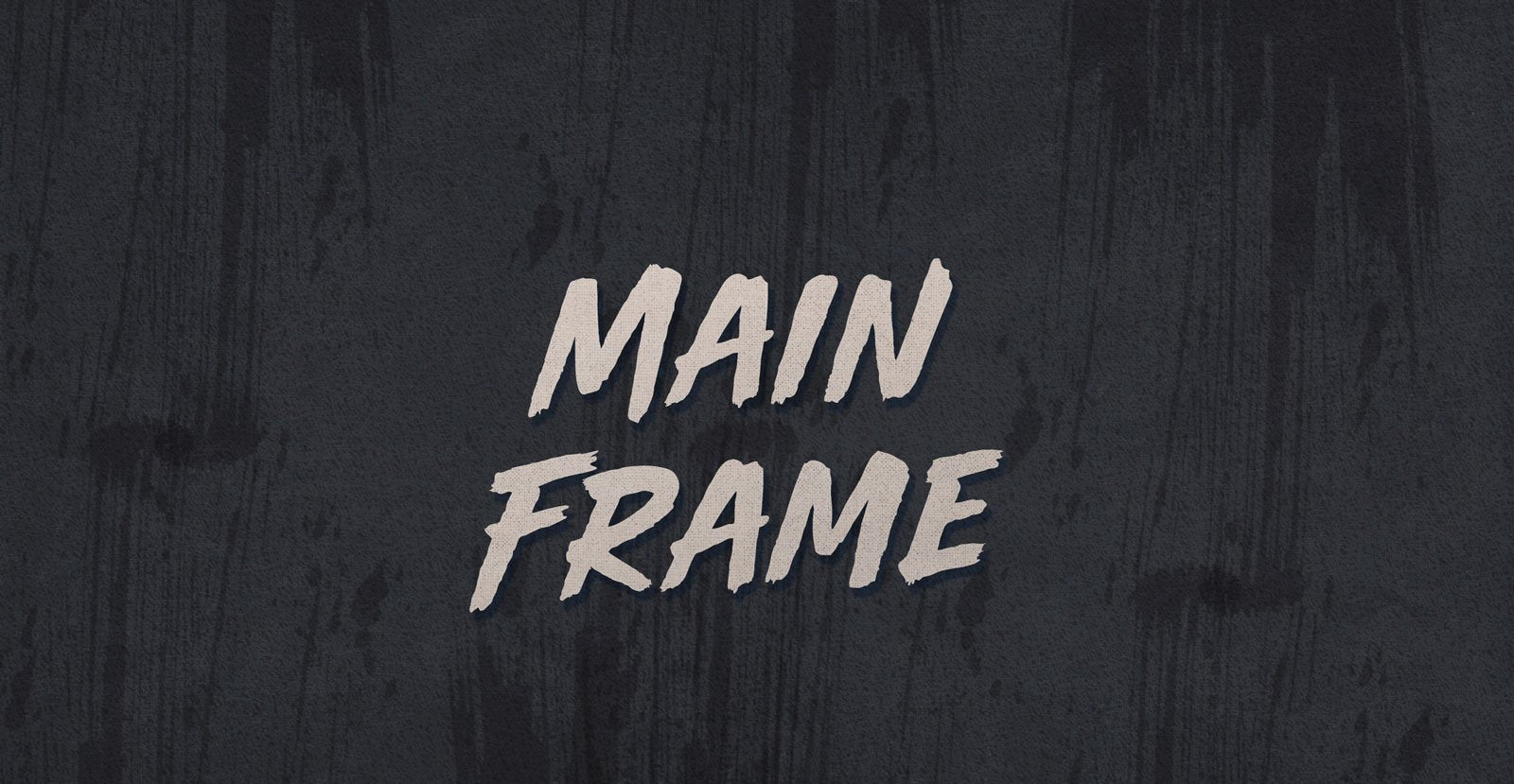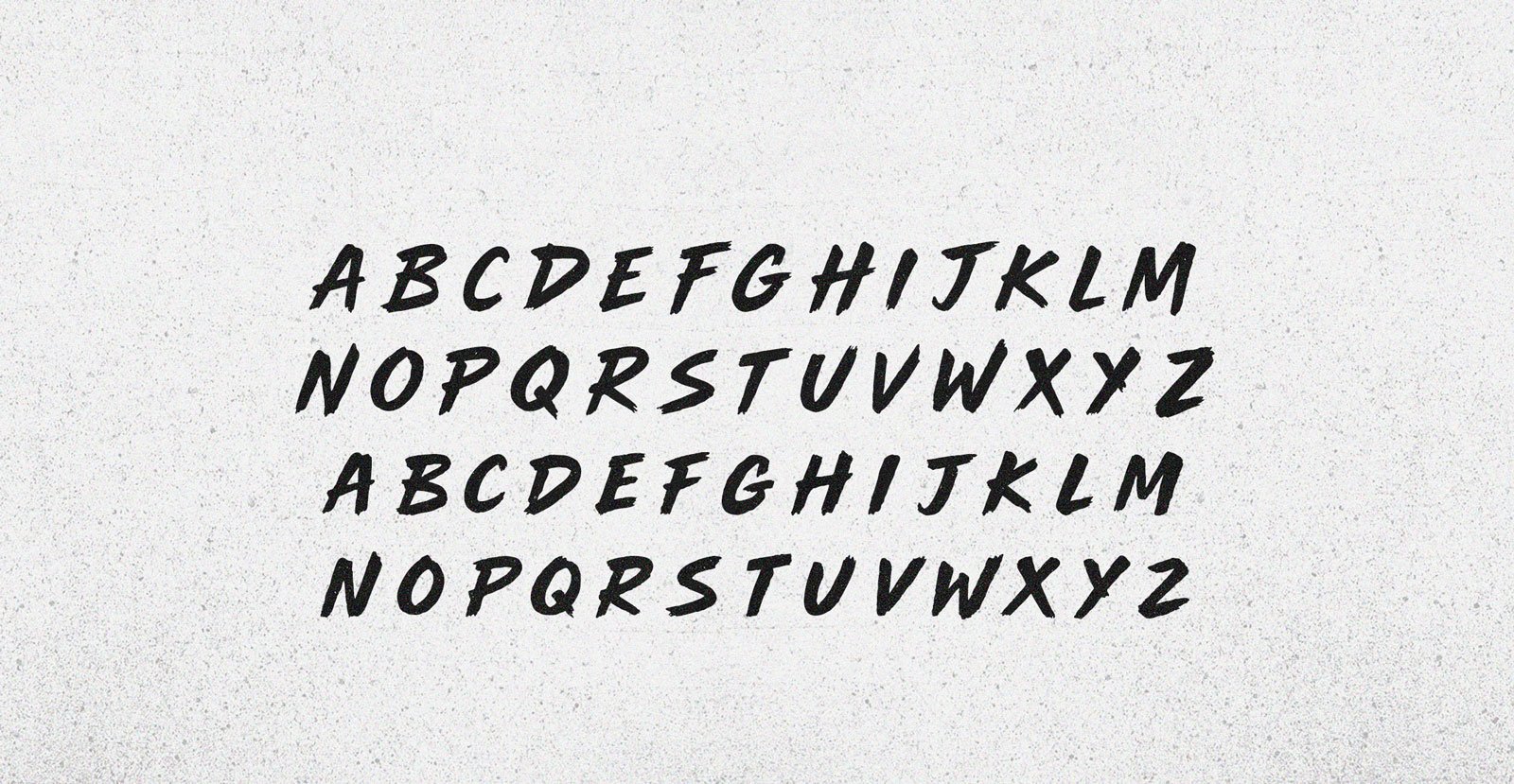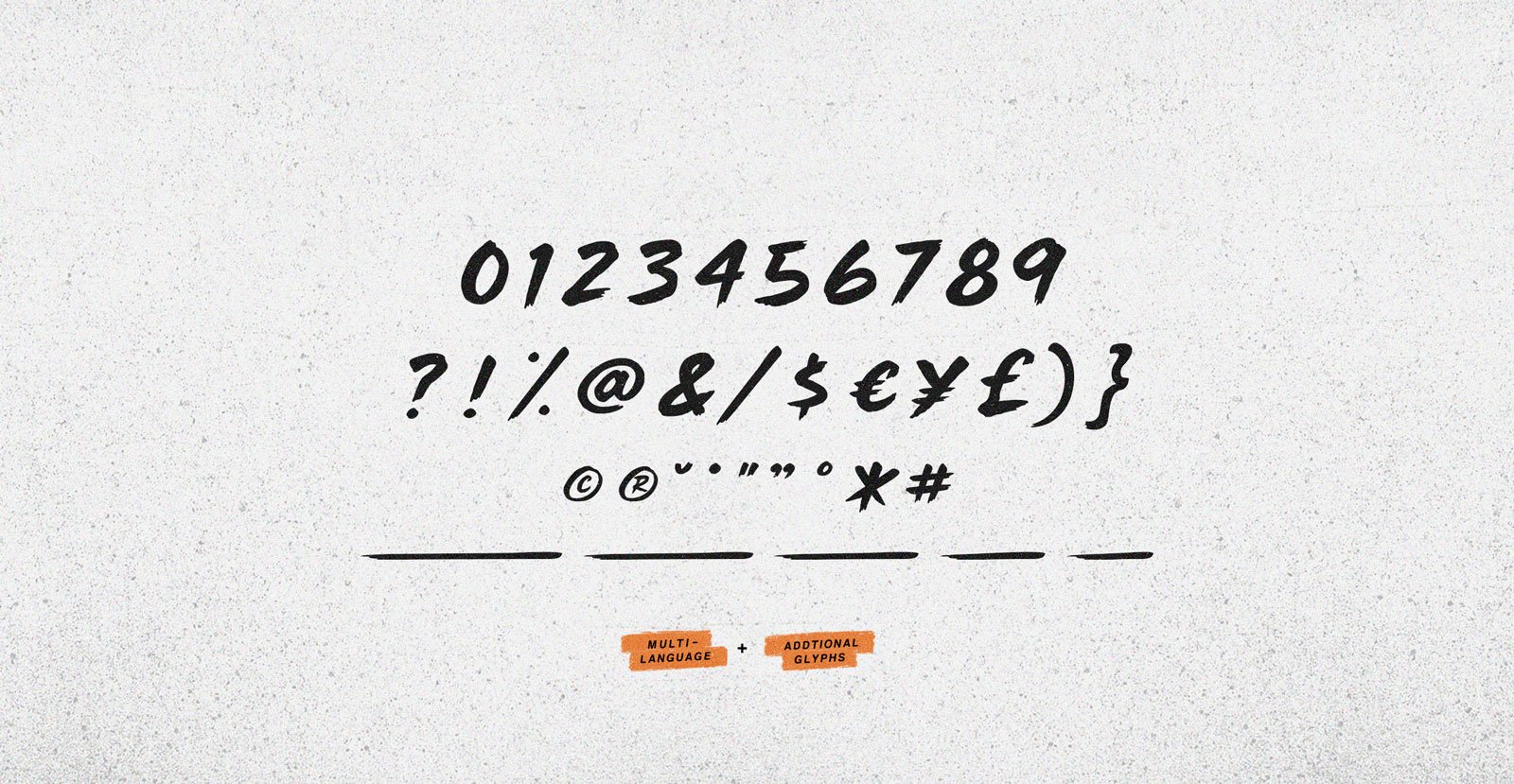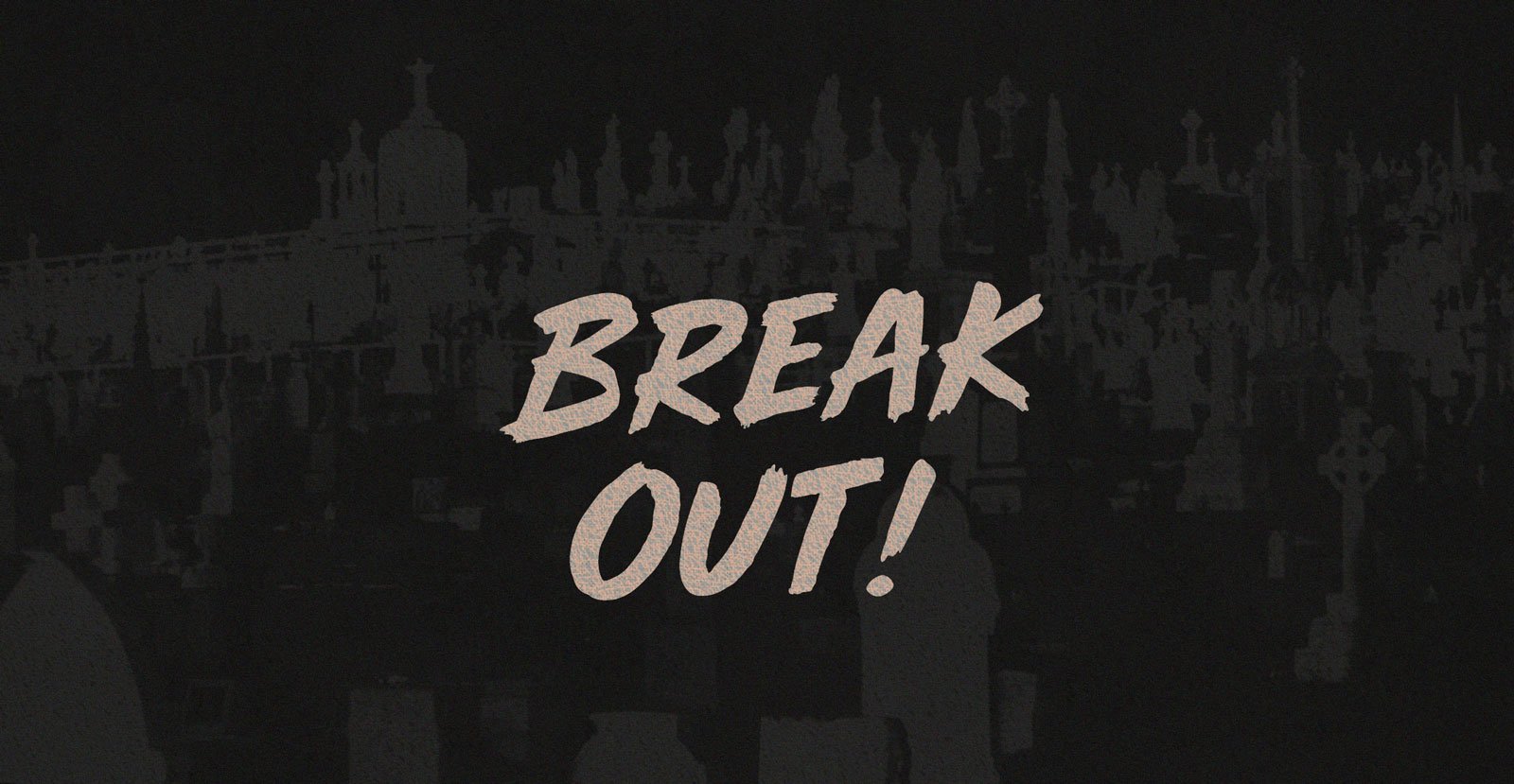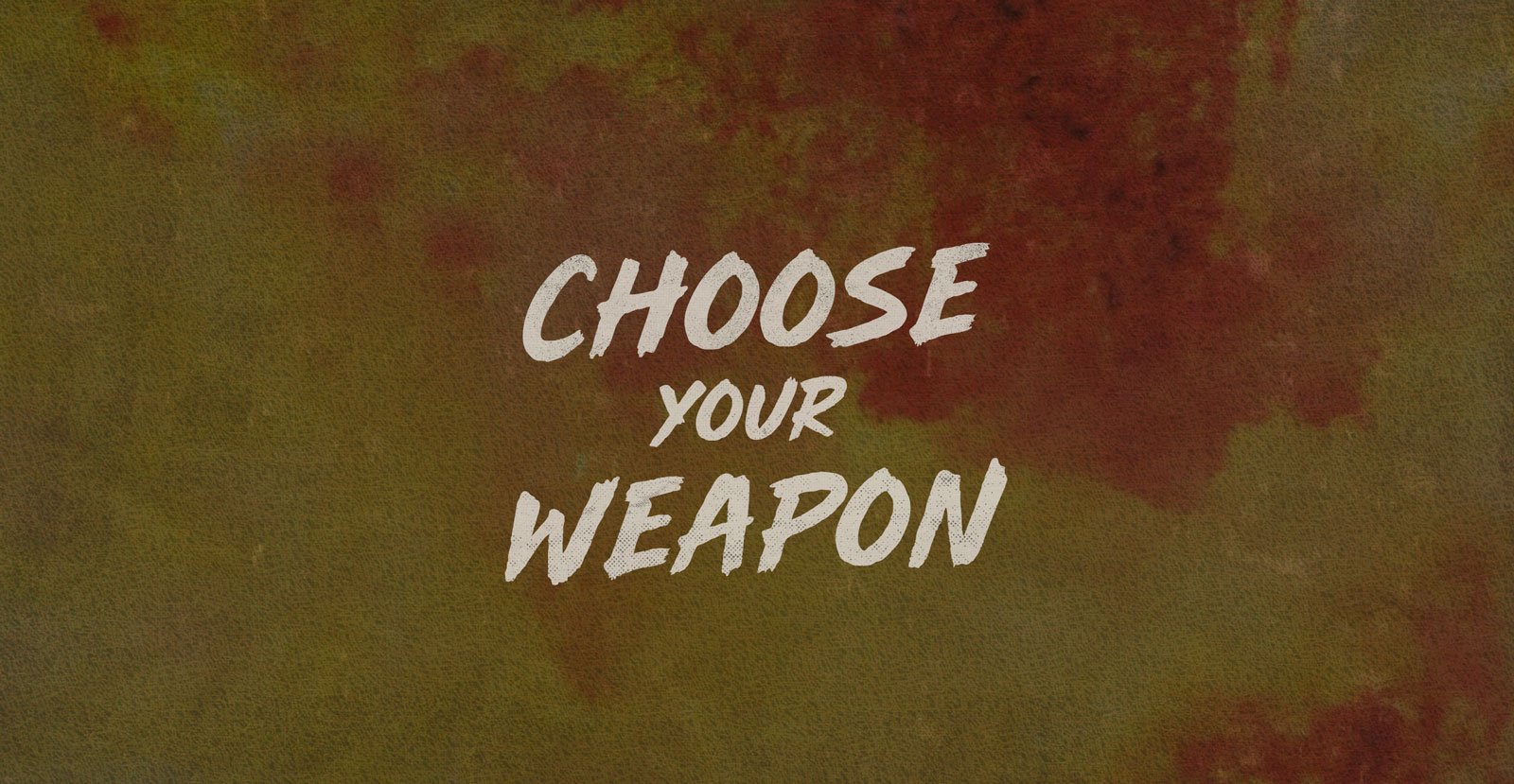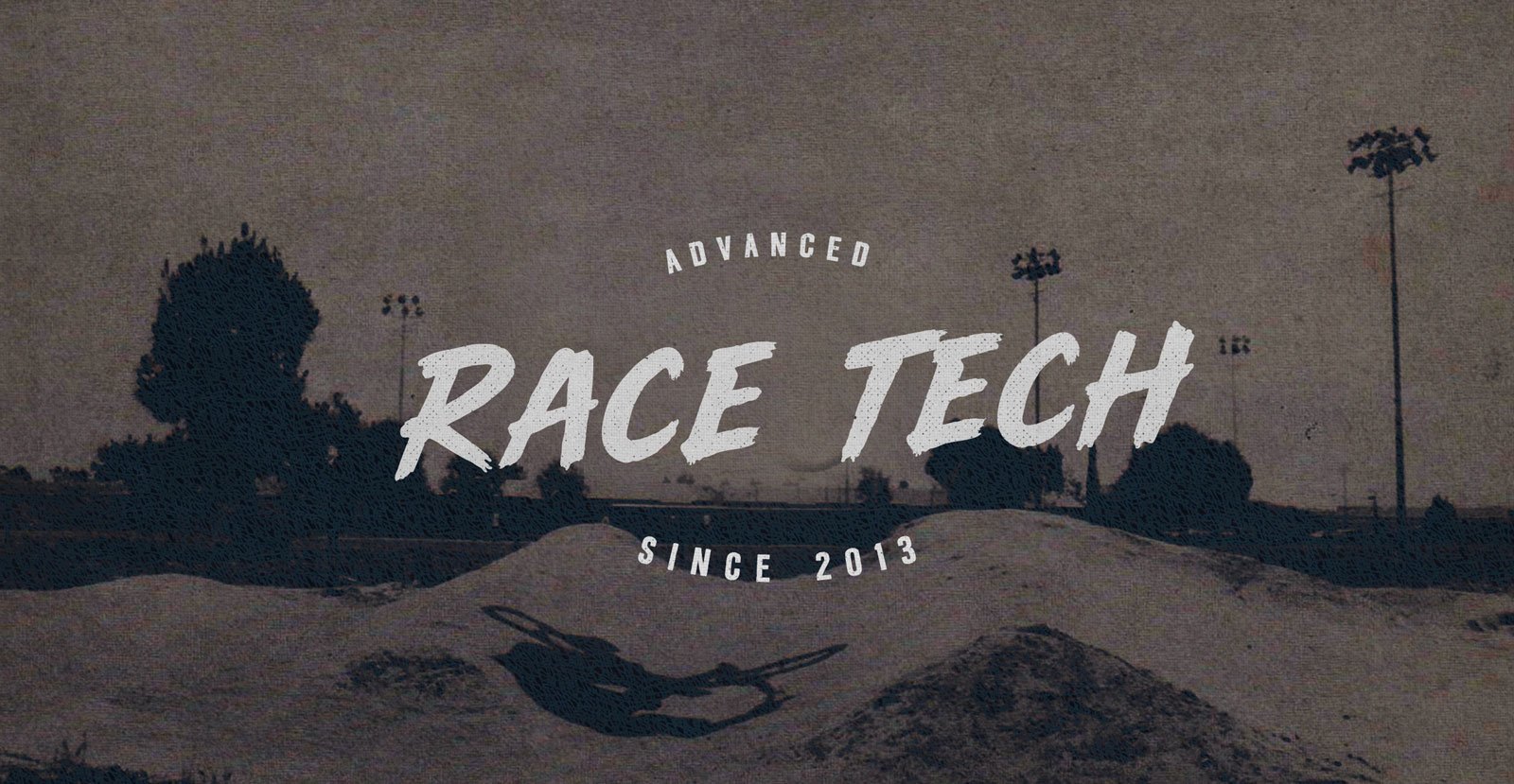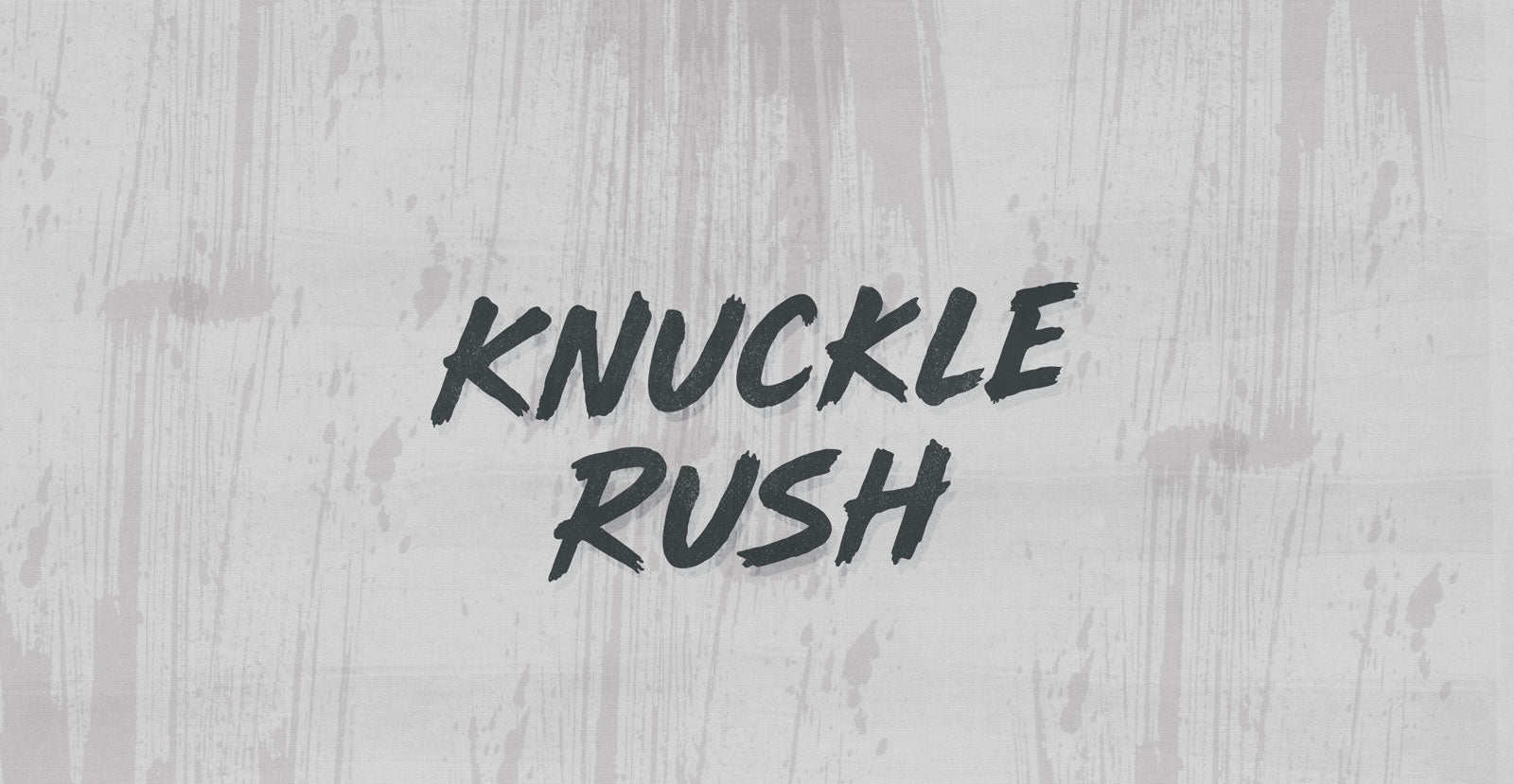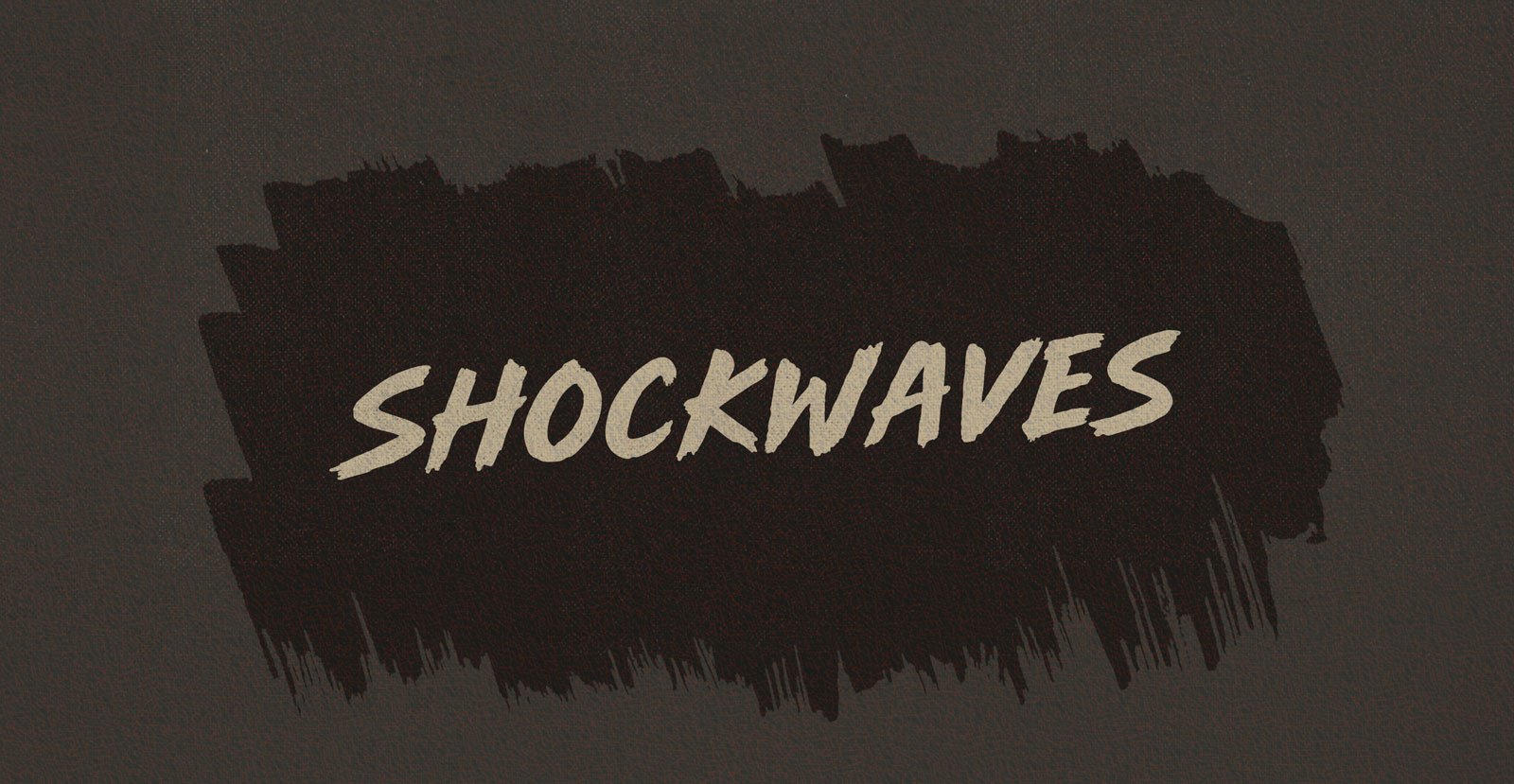
Main Frame
Basically intelligence, basically centralized, in a nest of collected twigs become structural sticks: the Main Frame. A humble prisoner of a hundred Cartesian dinner theatres, aware of internal differences but not enough to see the significance.